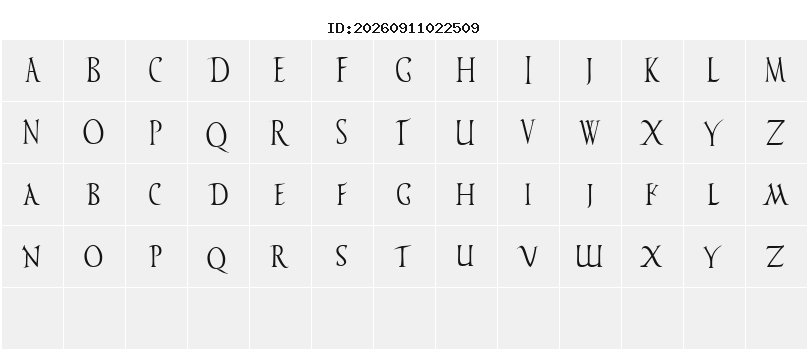
About Vespasiano Demo.ttf
Vespasiano Demo.ttf is a modern, elegant sans-serif font designed for ultimate readability and visual harmony. Perfect for branding, headlines, web design, and print materials.